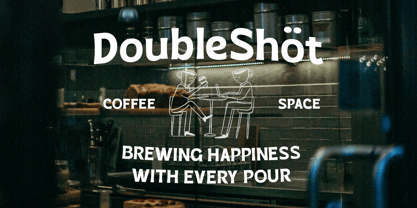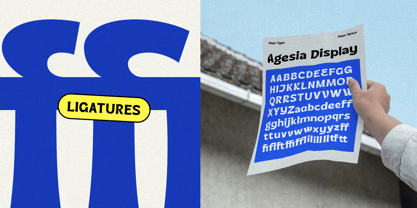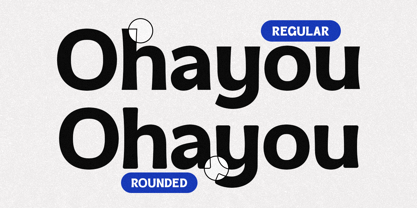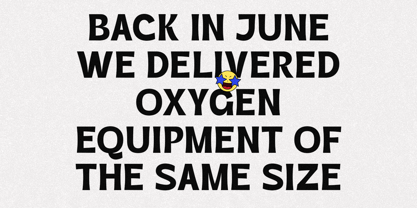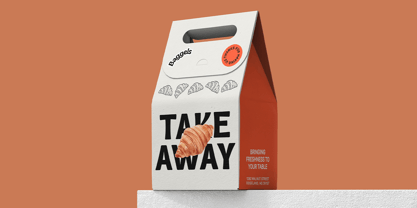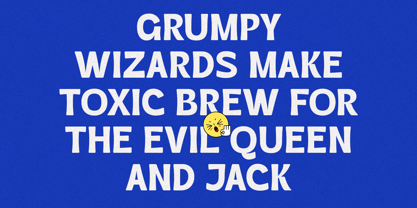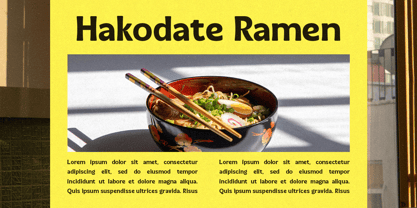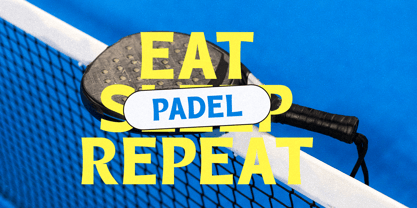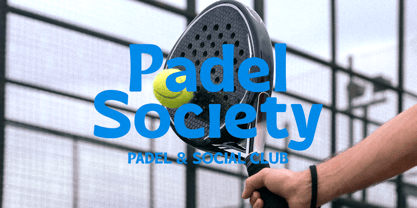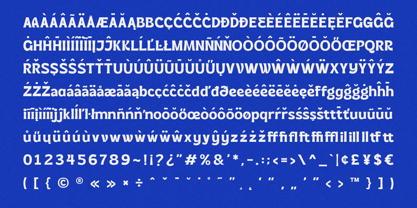
Agesia Display
by Haps Space
The Agesia Display Font Family was designed by Haris Purnama Putra, Egi Ahmad Mufid and published by Haps Space. Agesia Display contains 2 styles and family package options. More about this family
Agesia Display, a bold and expressive typeface designed to make a statement. Its distinct letterforms and smooth curves create a strong visual presence, making it an ideal choice for titles, branding, and packaging. This font family comes in 2 styles: Regular and Rounded, offering versatility to achieve different looks—from a confident, direct feel to a more approachable, soft aesthetic. Ensuring full compatibility for both print and digital platforms.
• Unique Letterforms